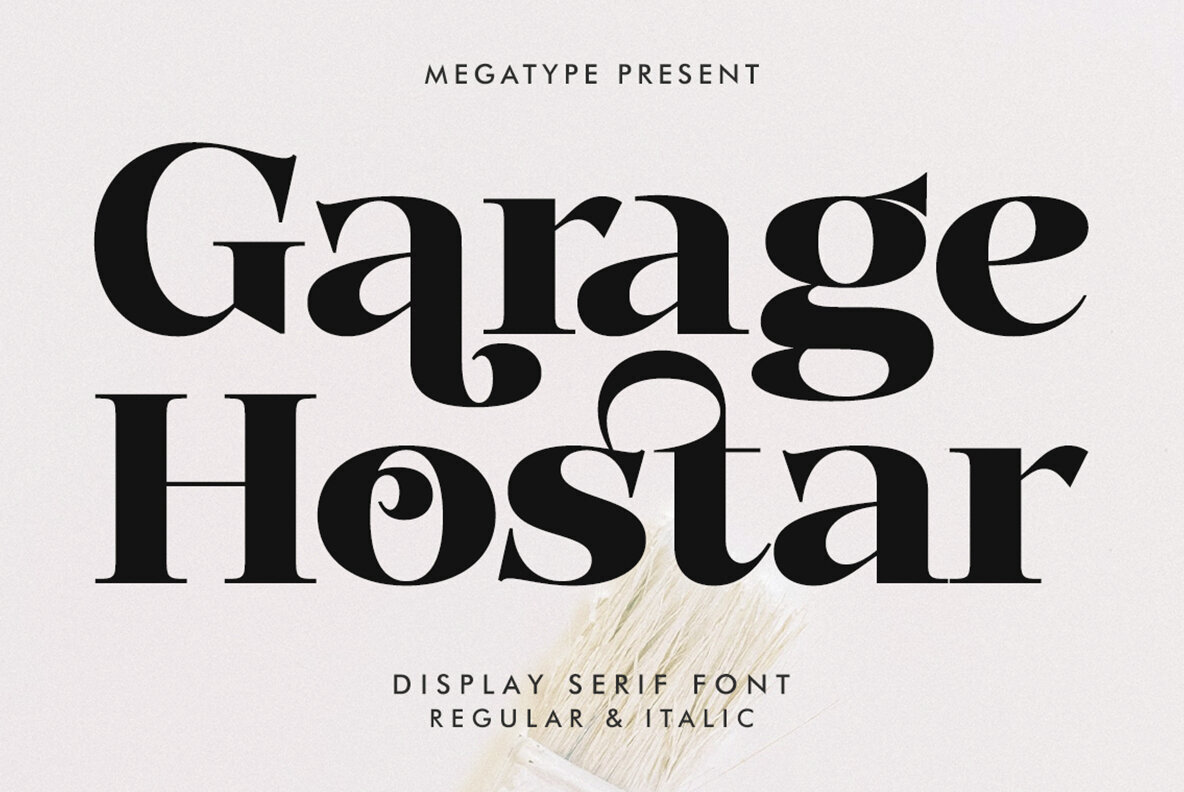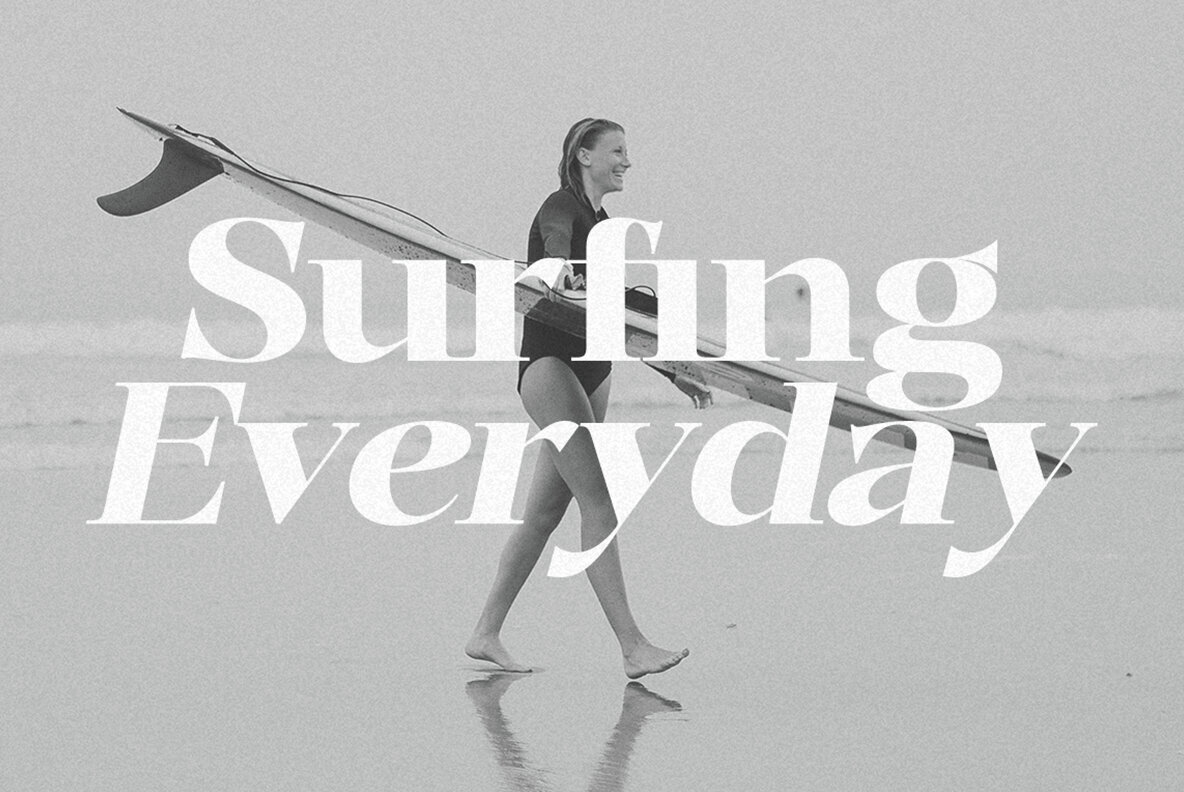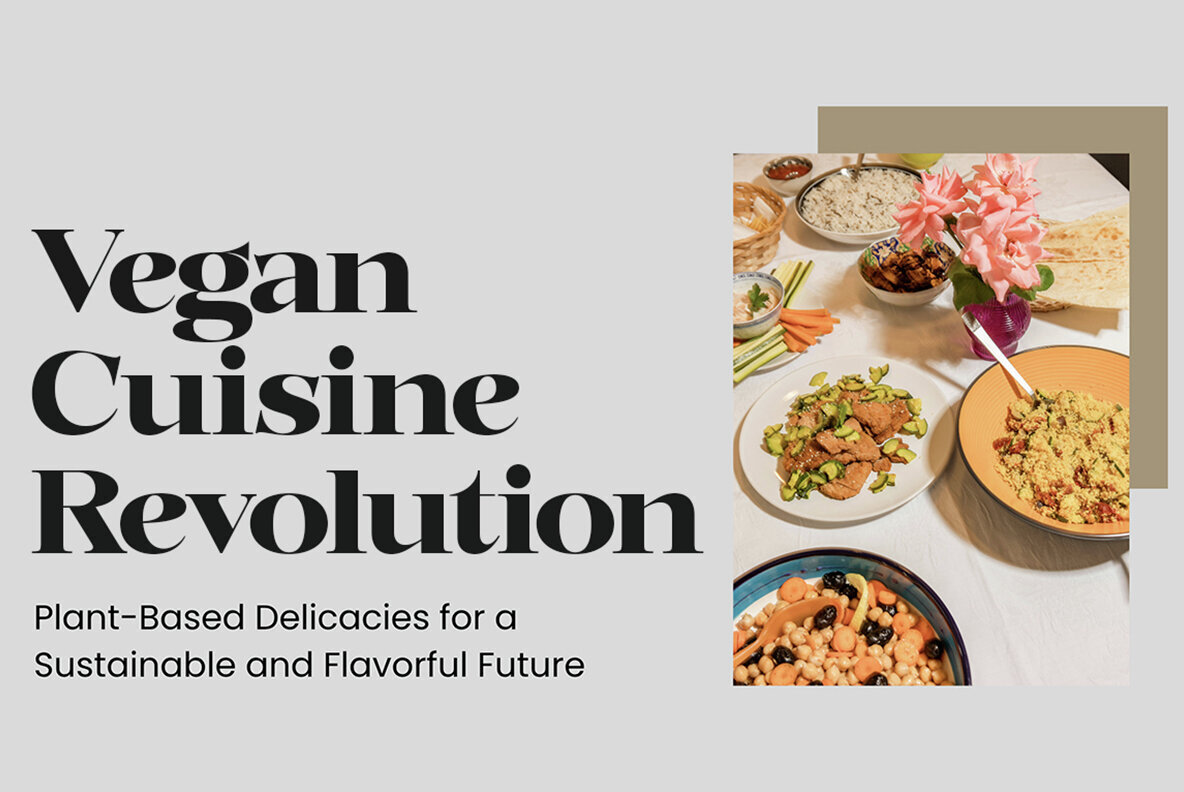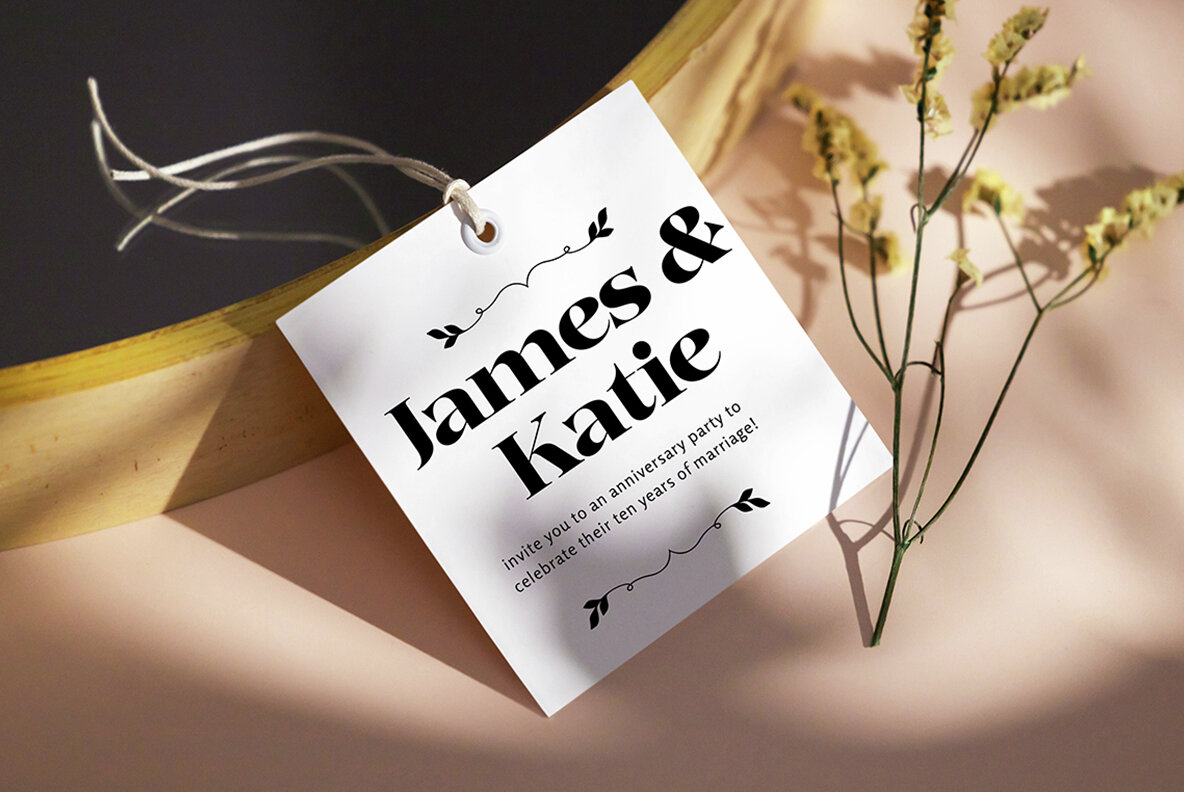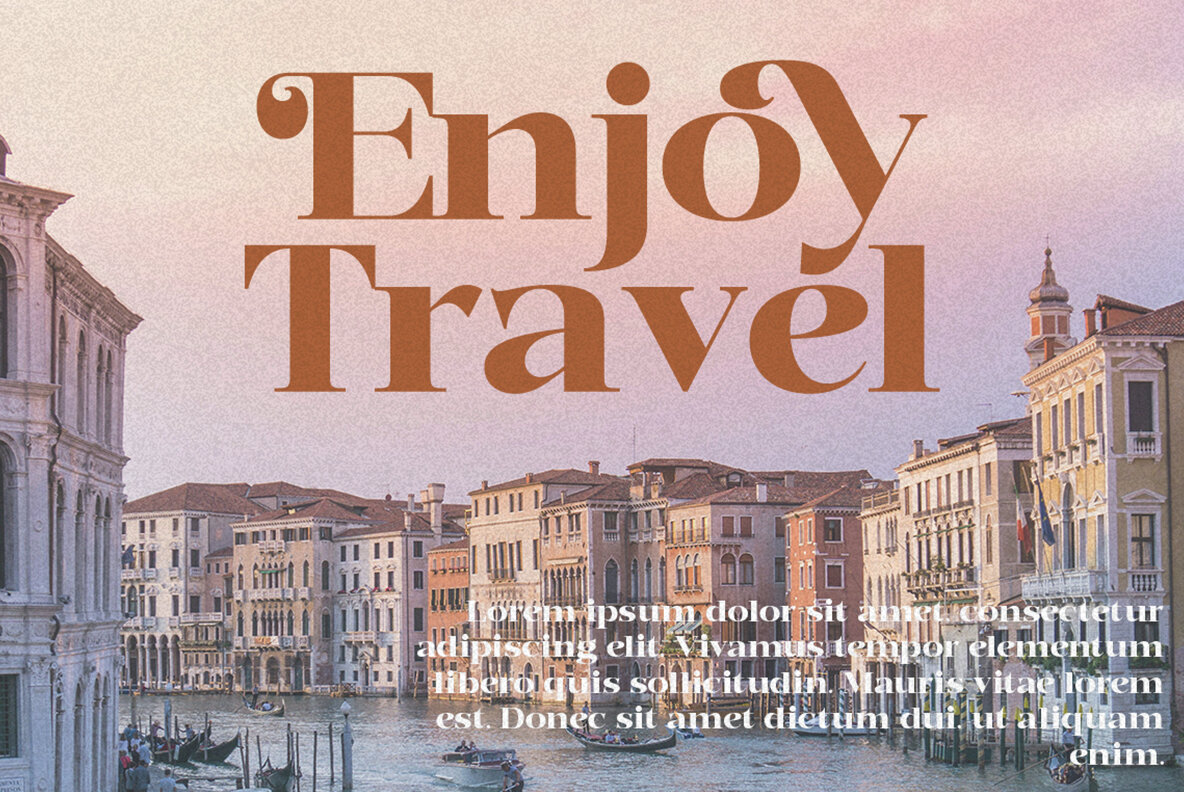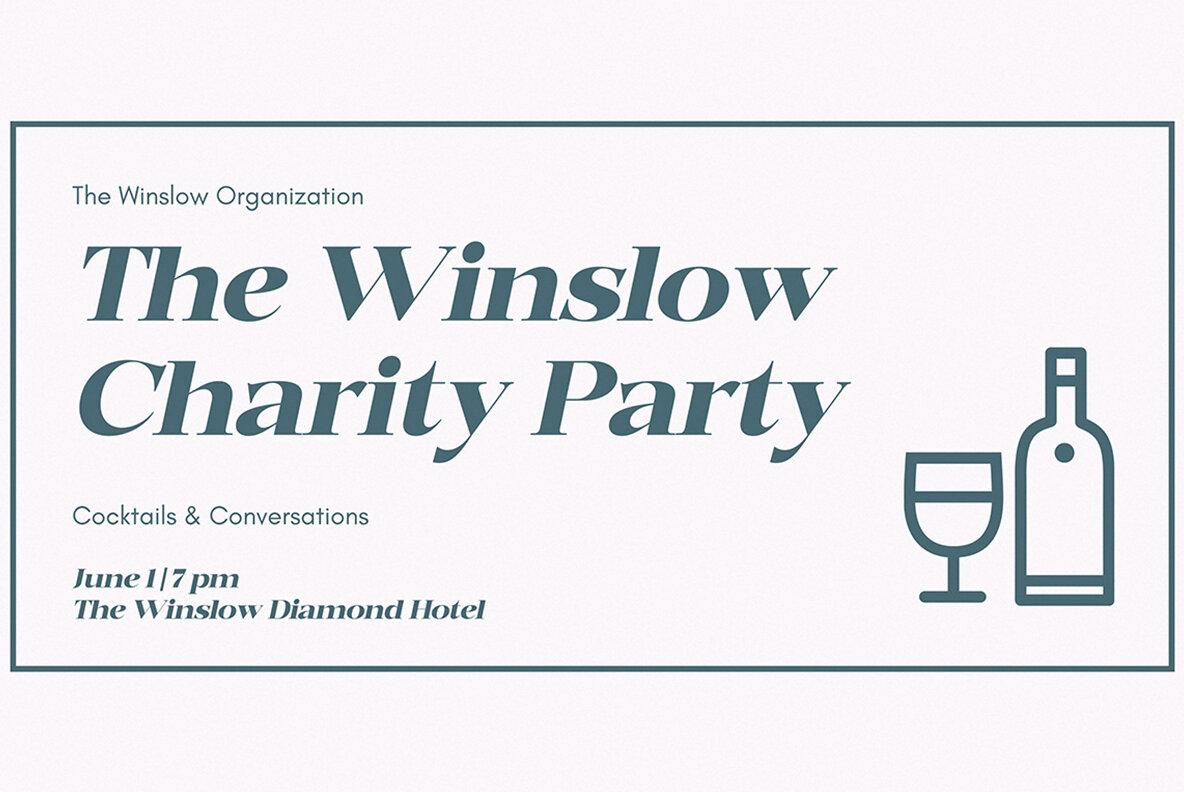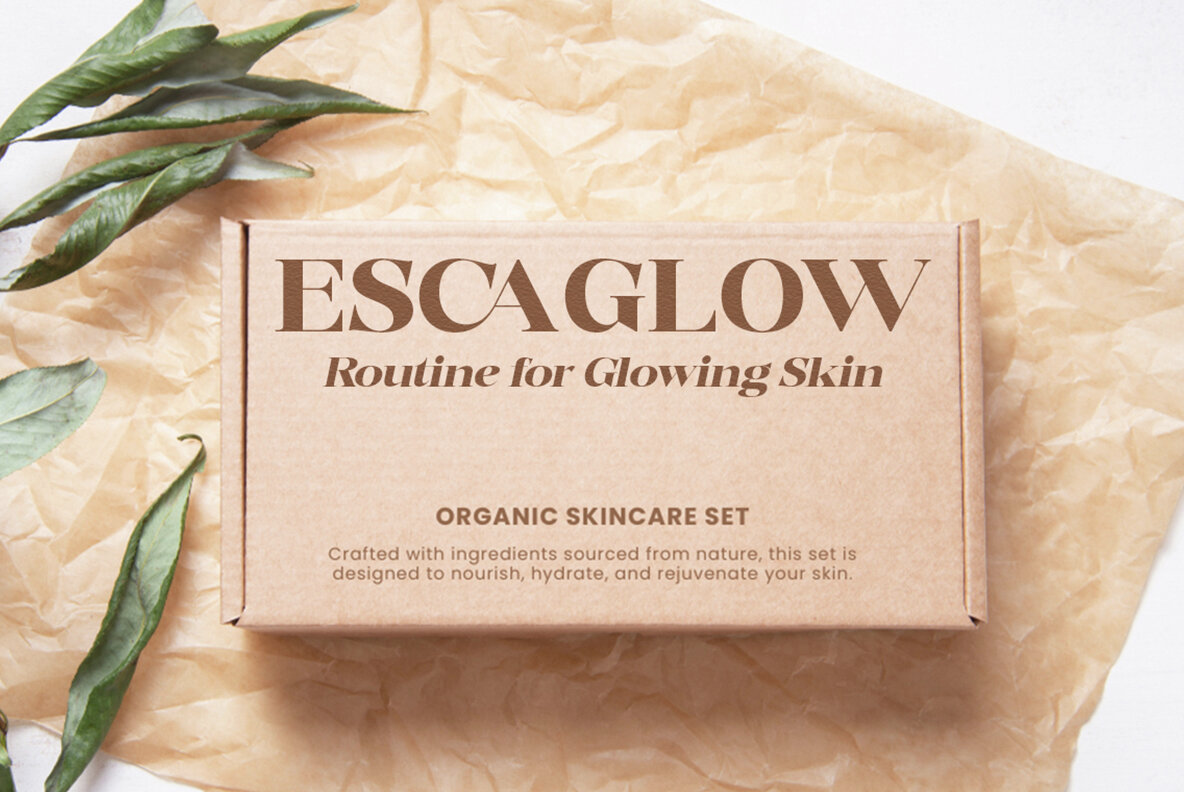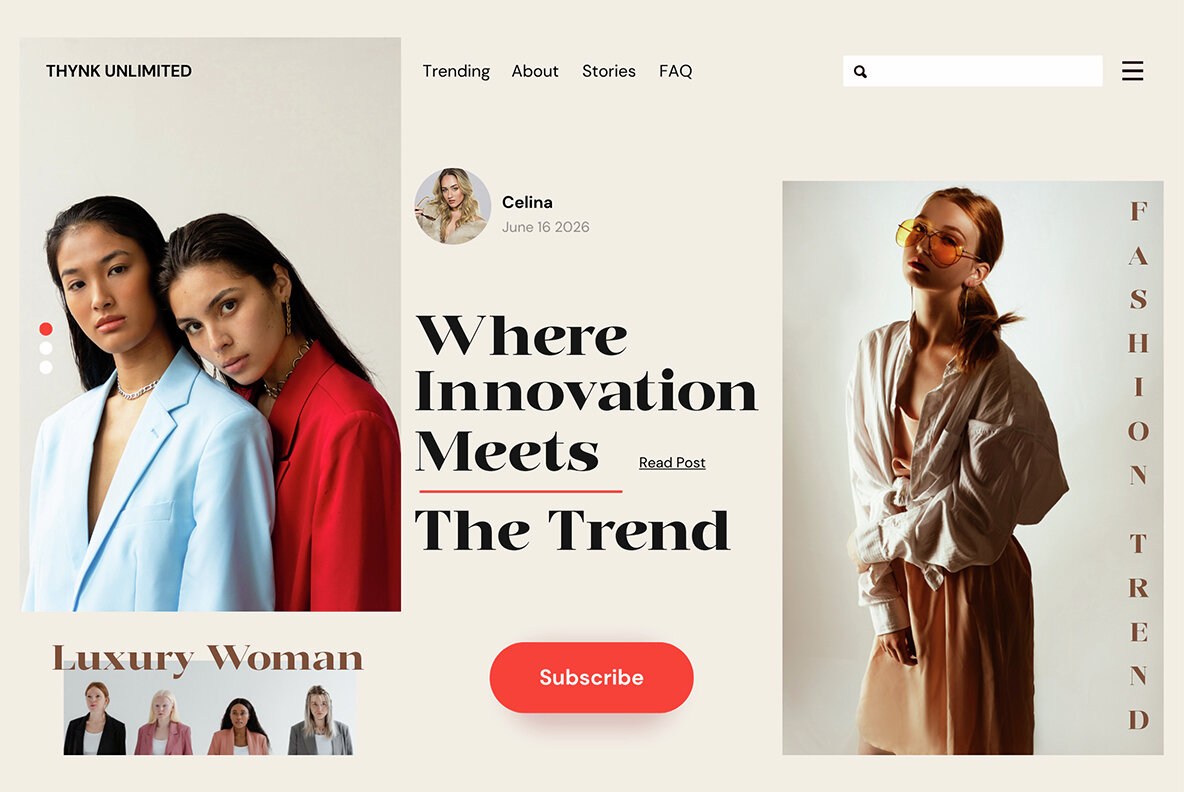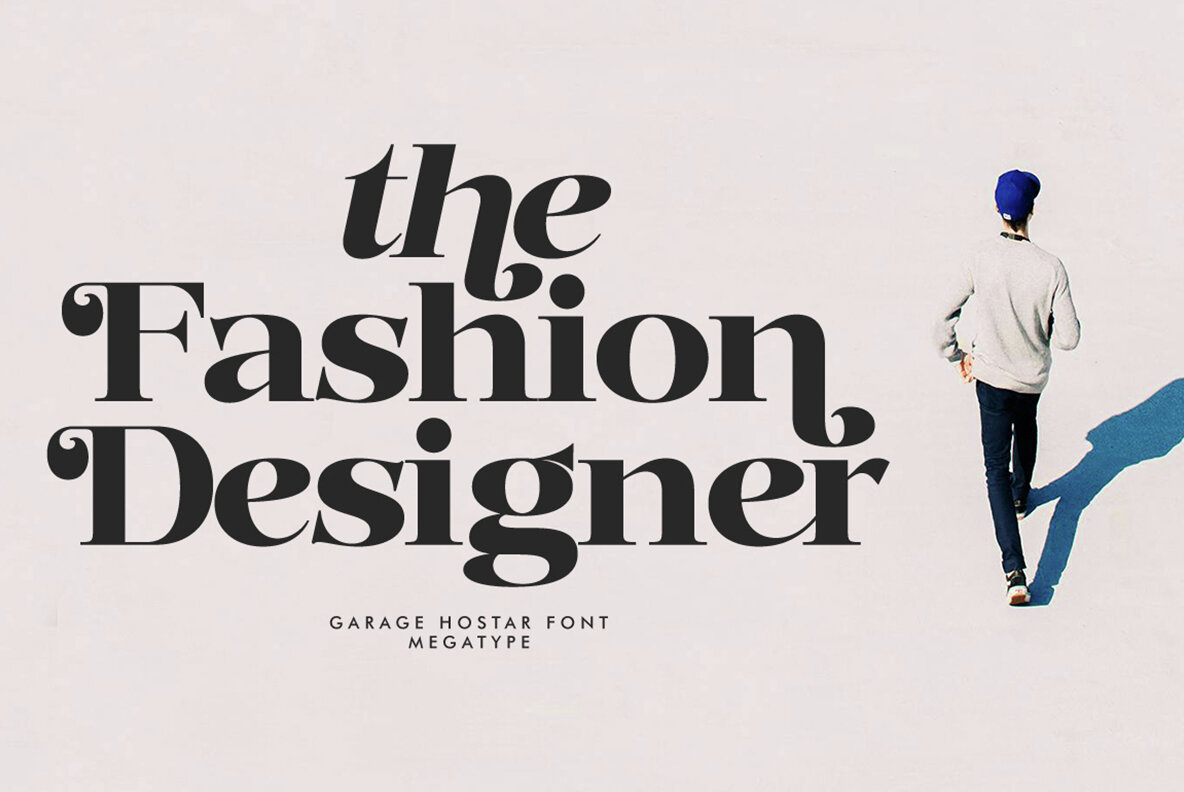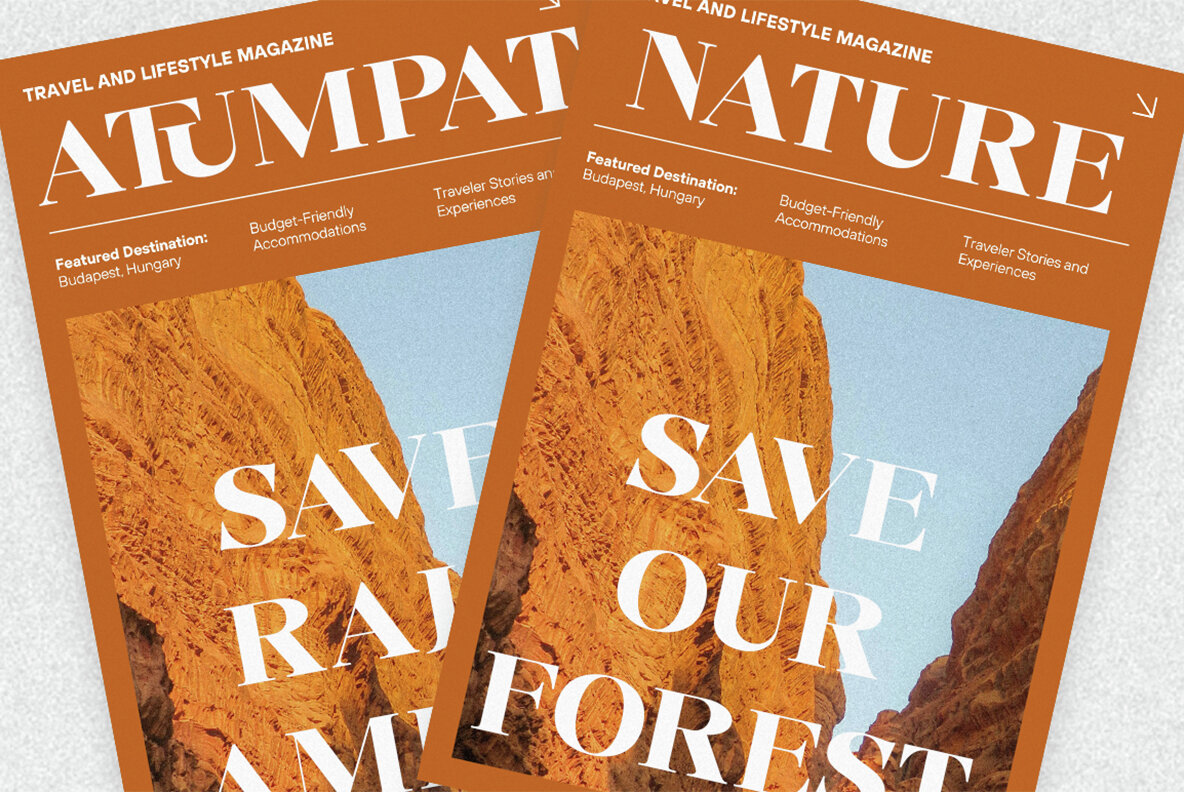
Garage Hostar Font
The Garage Hostar font is an eye-catching serif typeface that blends classical elegance with playful, modern details. Its high-contrast letterforms are reminiscent of Didone-style typefaces, featuring unique teardrop terminals and bold curves. These elements give the font a whimsical, theatrical vibe, making it perfect for artistic projects. Garage Hostar's design is marked by its consistent vertical stress and sharp contrast between thick and thin strokes, which adhere to traditional serif principles while incorporating playful flourishes and loops. This balance makes it versatile enough for both headline displays and defining logos. The uppercase letters exude boldness and authority, while the lowercase characters introduce a fluid, calligraphic motion, enhancing its distinctive personality.Garage Hostar: A Unique Serif Font